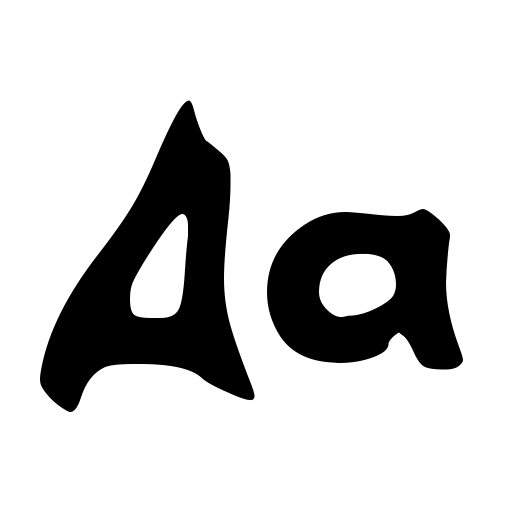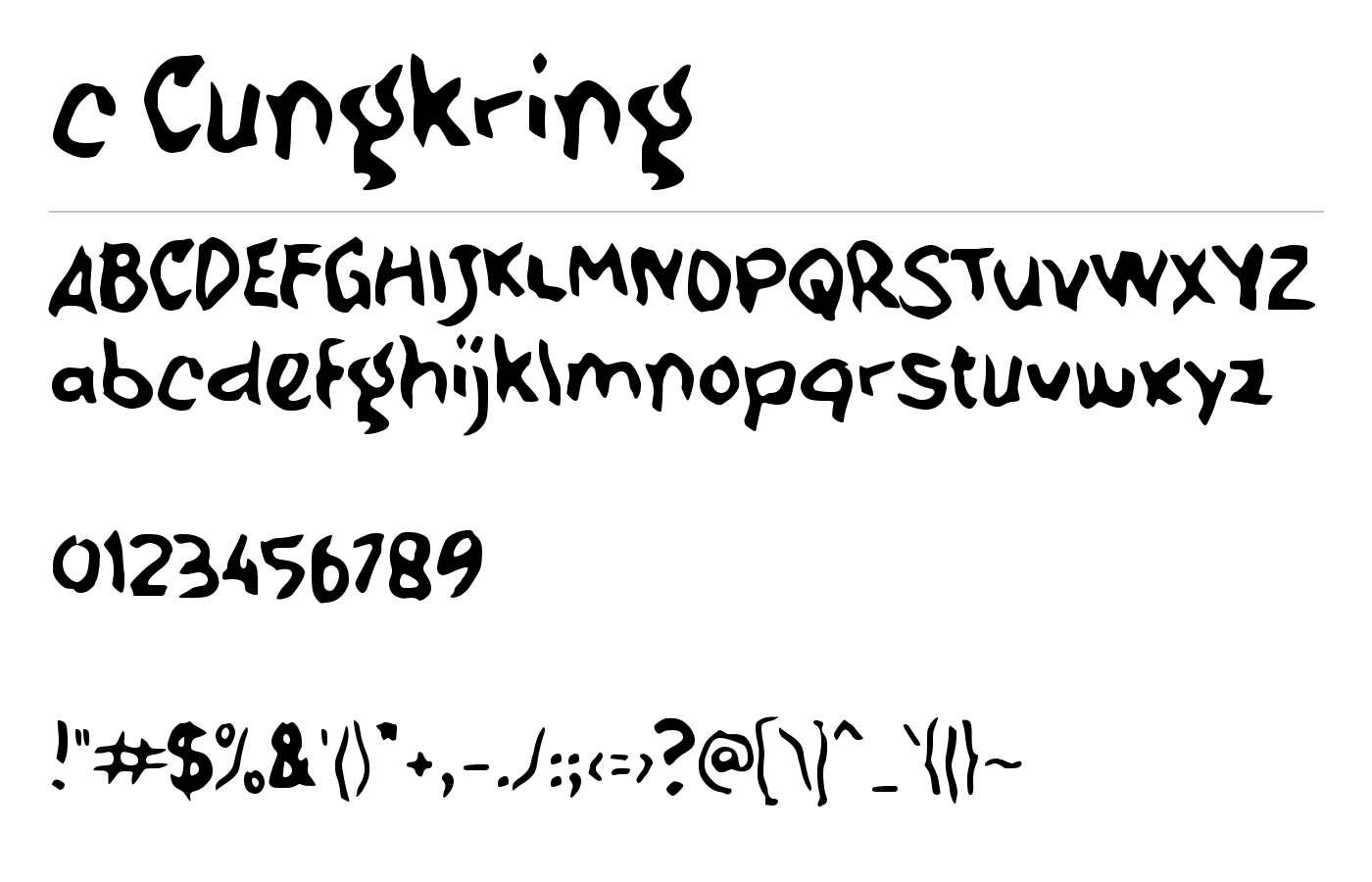
C Cungkring is a playful, irregular sans serif font with a hand-drawn, organic feel. Its quirky, uneven letterforms and moderate contrast give it a casual and artistic personality, making it perfect for creative projects, children's materials, or informal branding where a unique, friendly vibe is desired. This font works well in headlines and logos that seek to stand out with a distinctive, handcrafted look.
c Cungkring Font
About c Cungkring Font